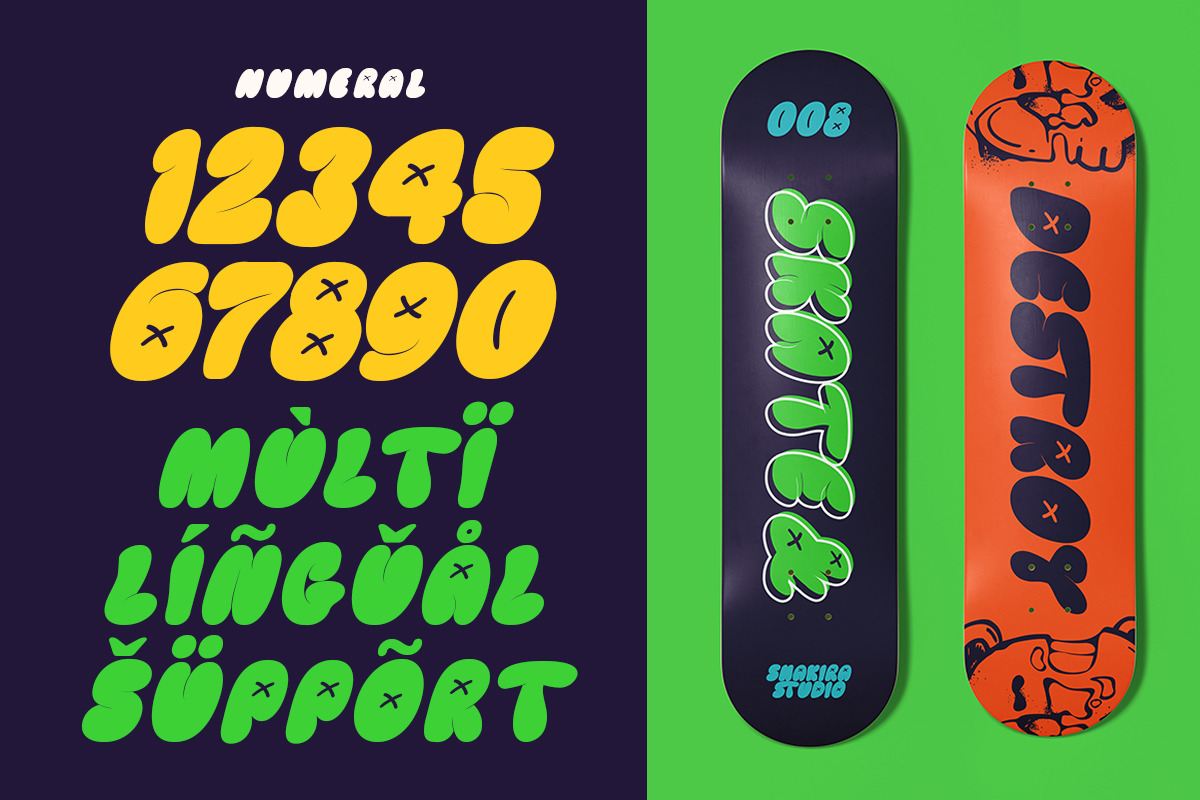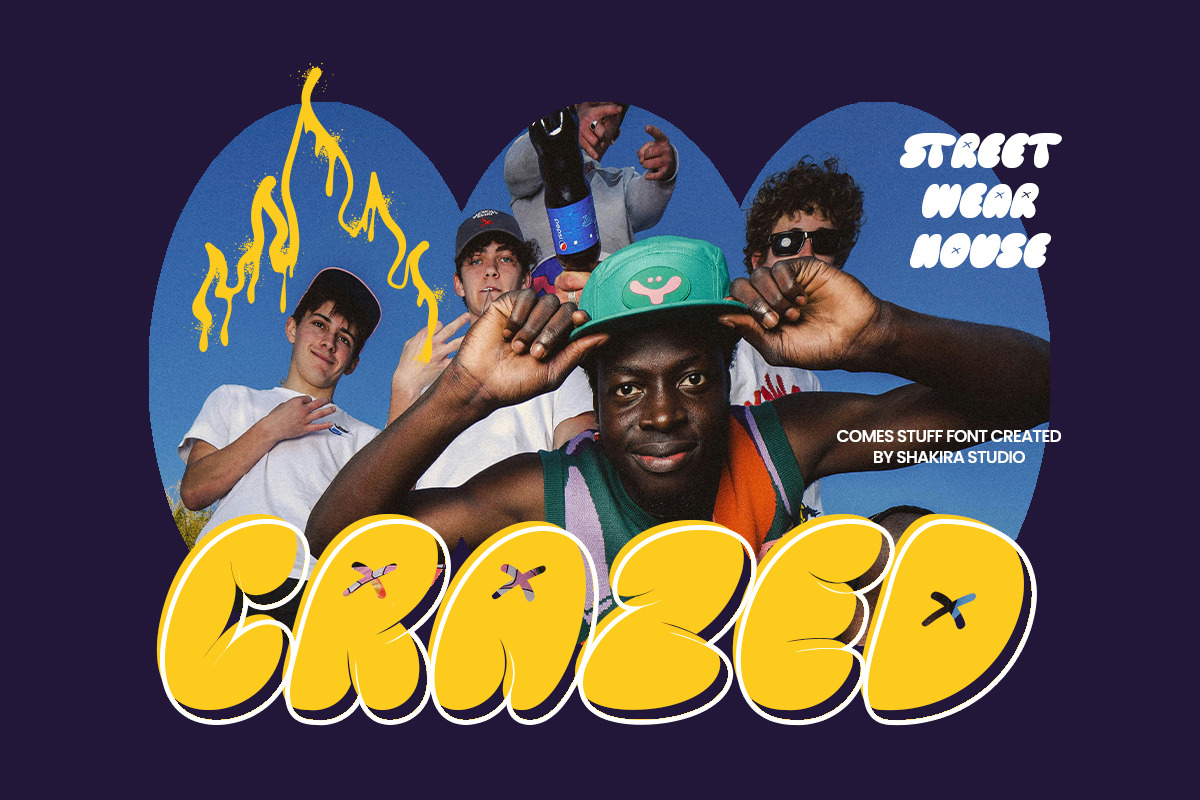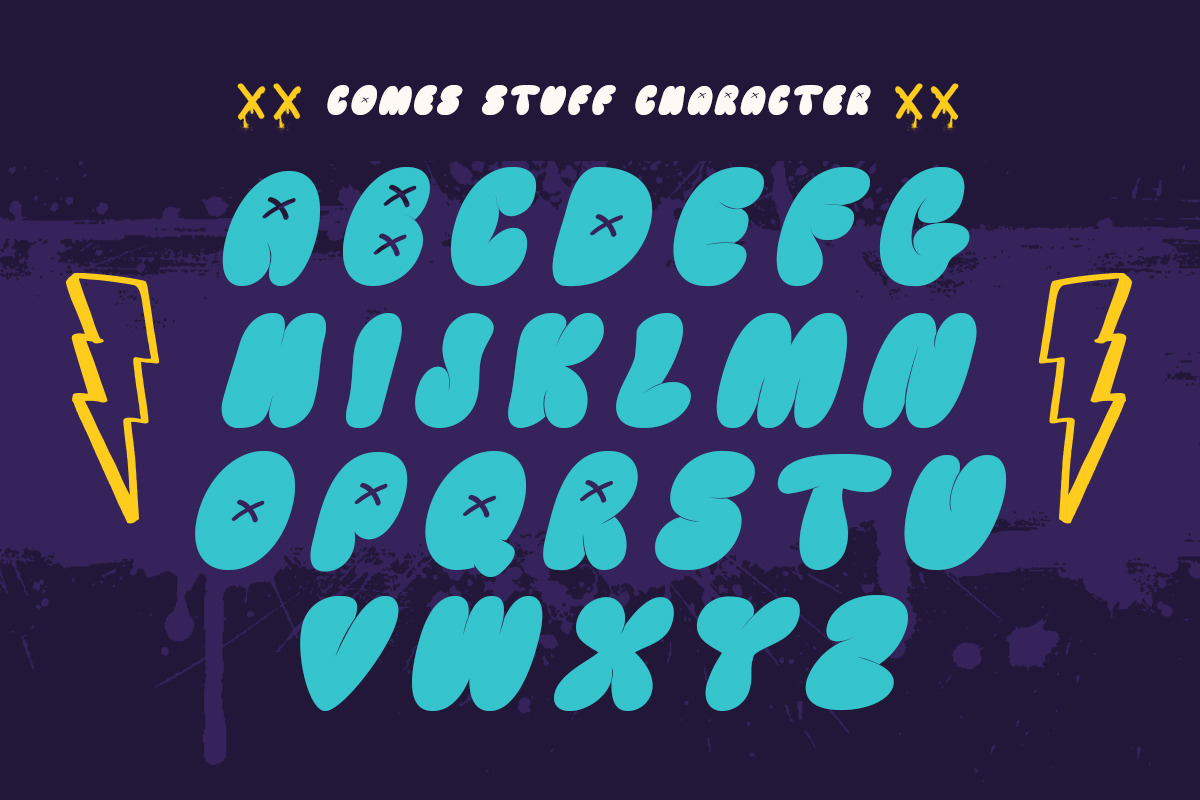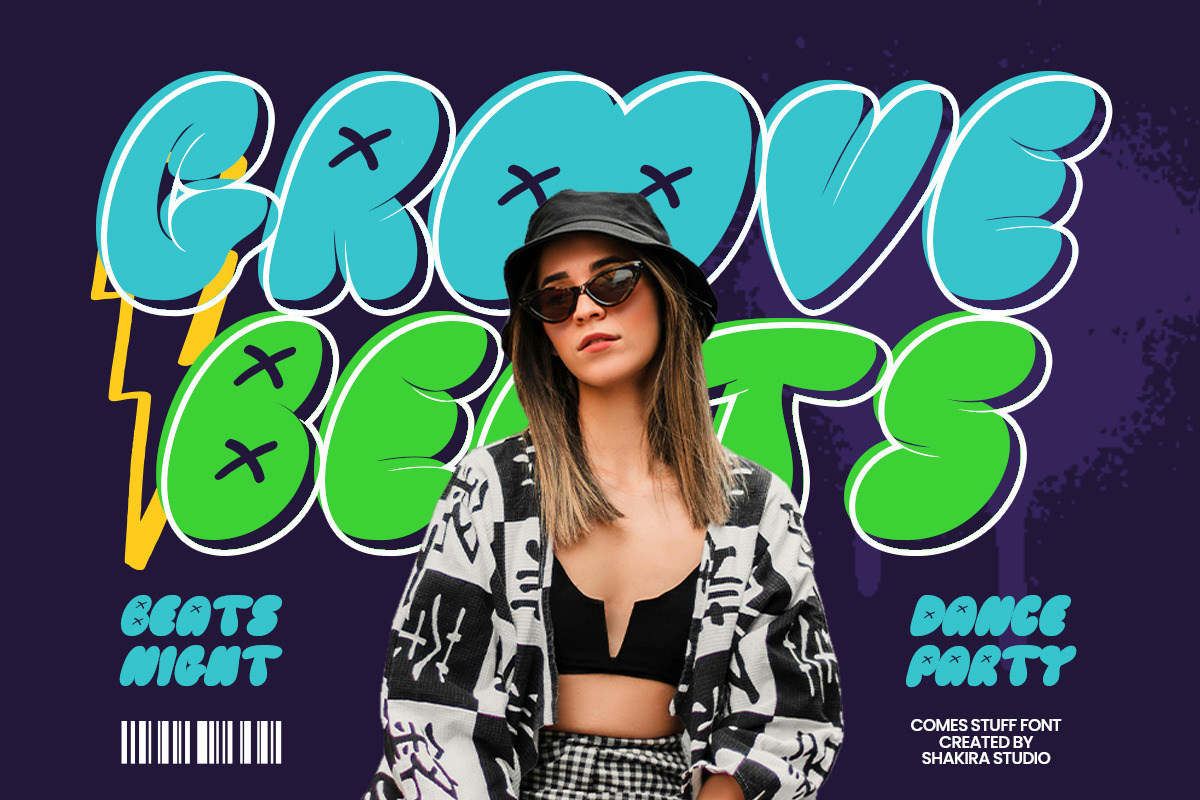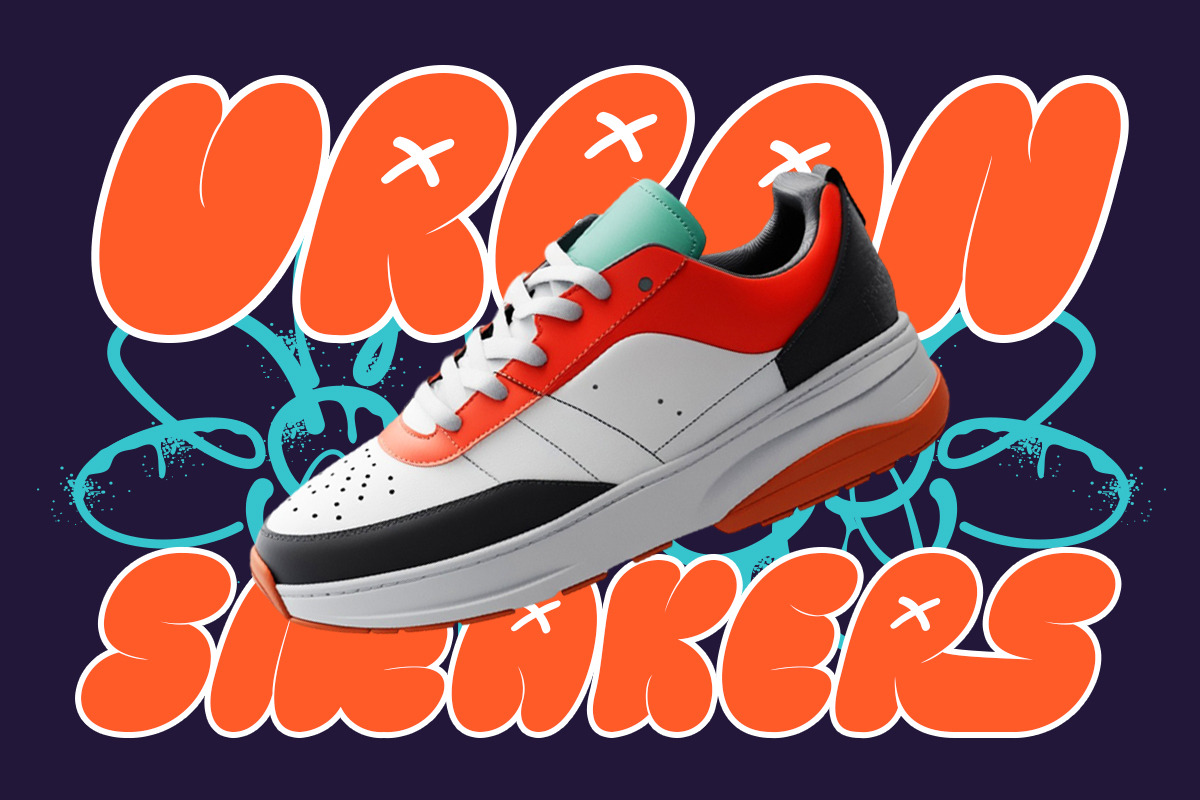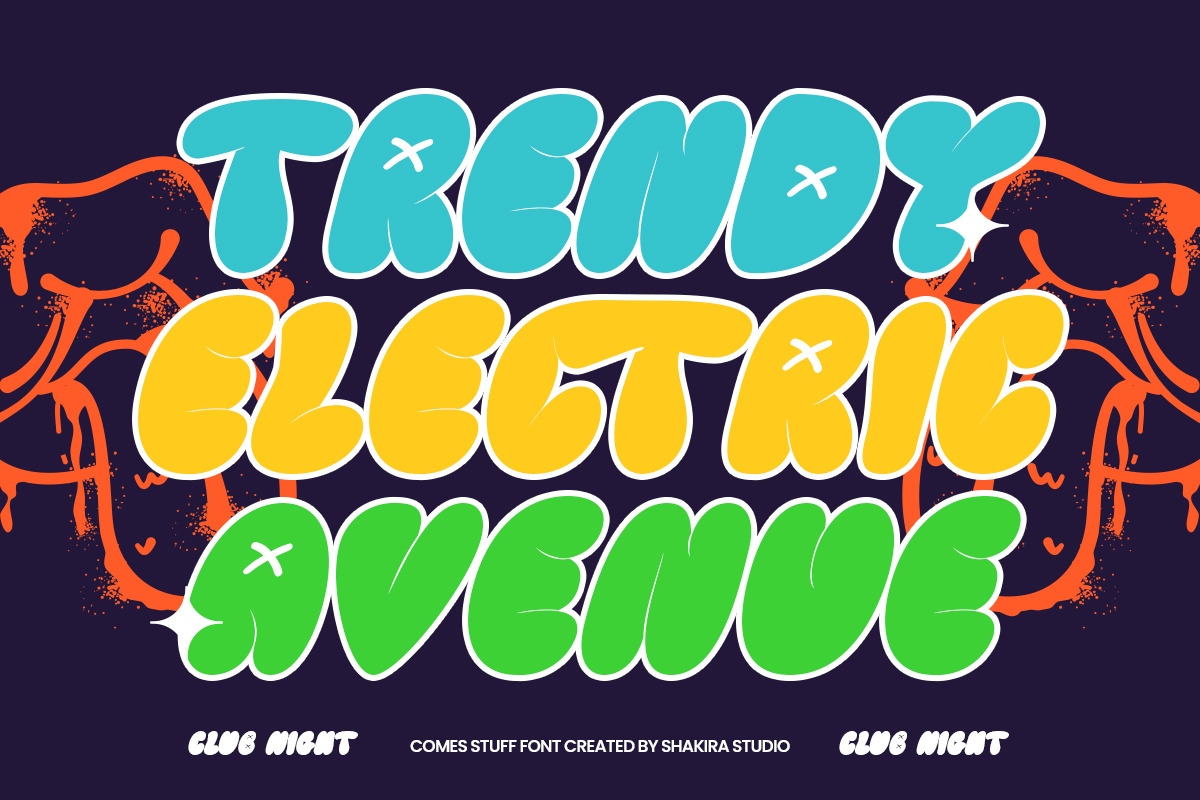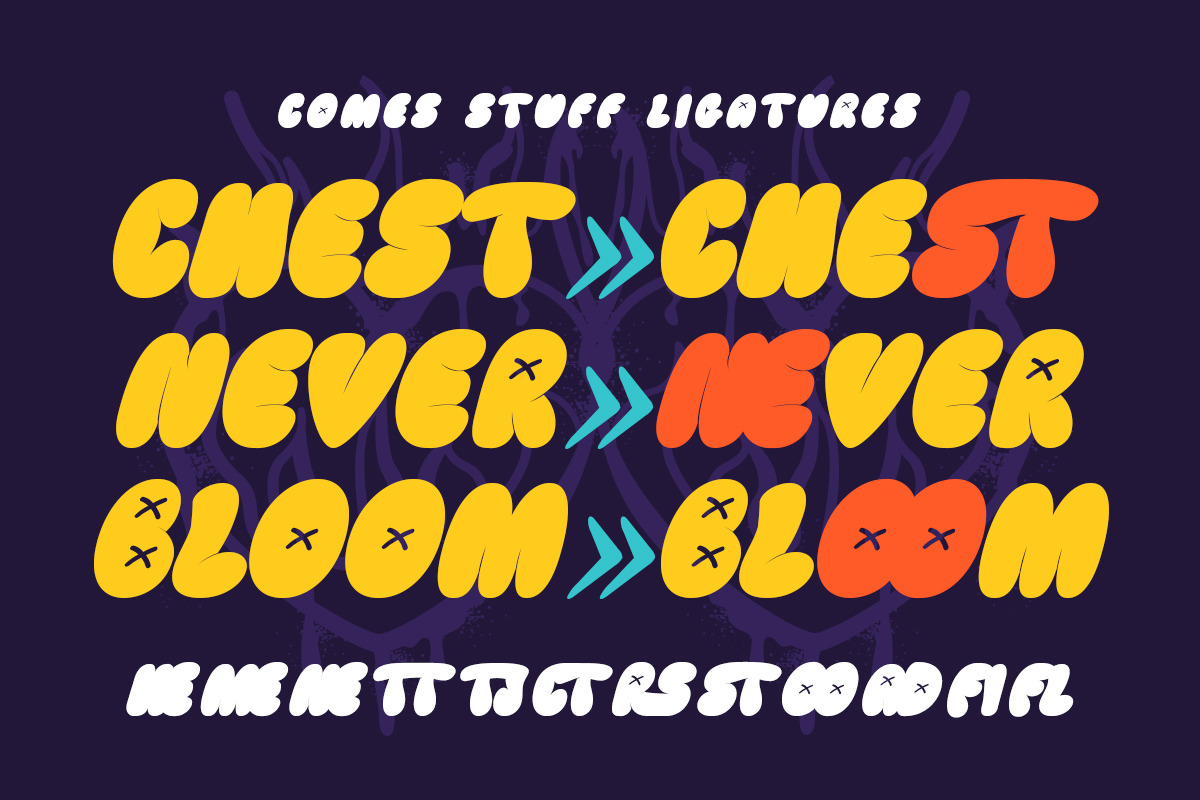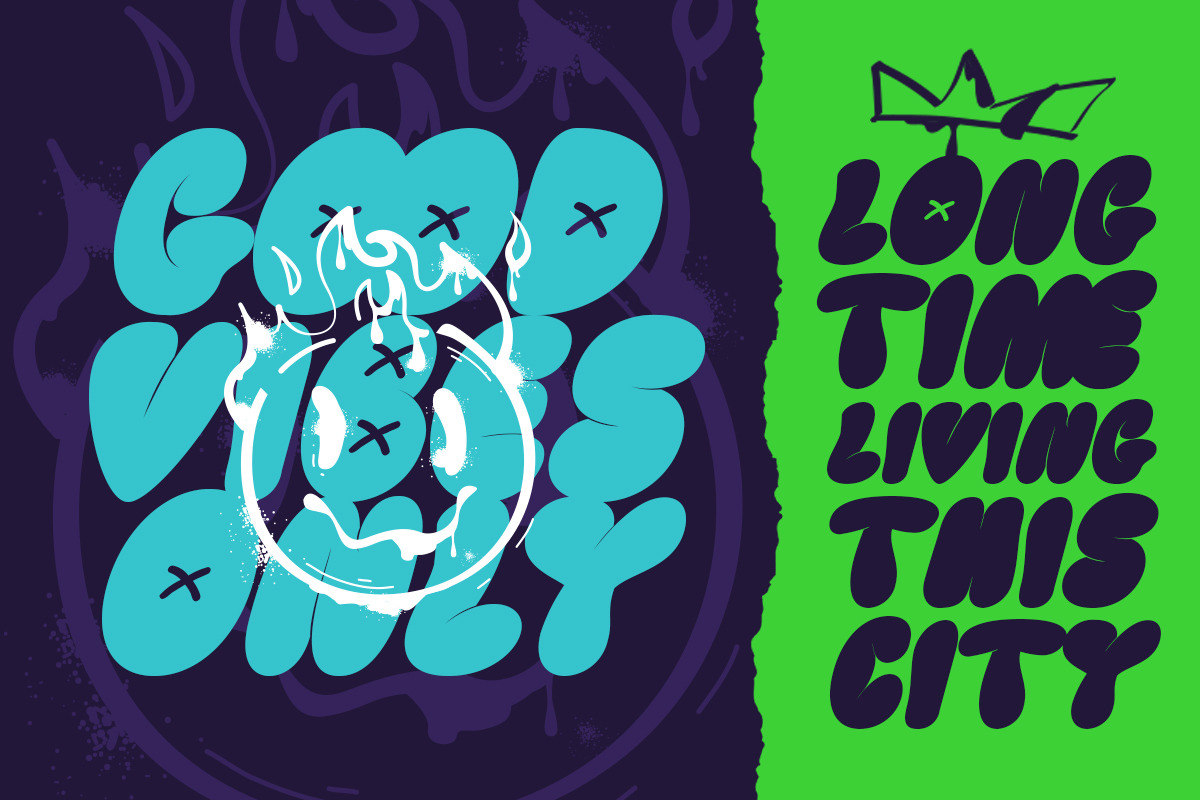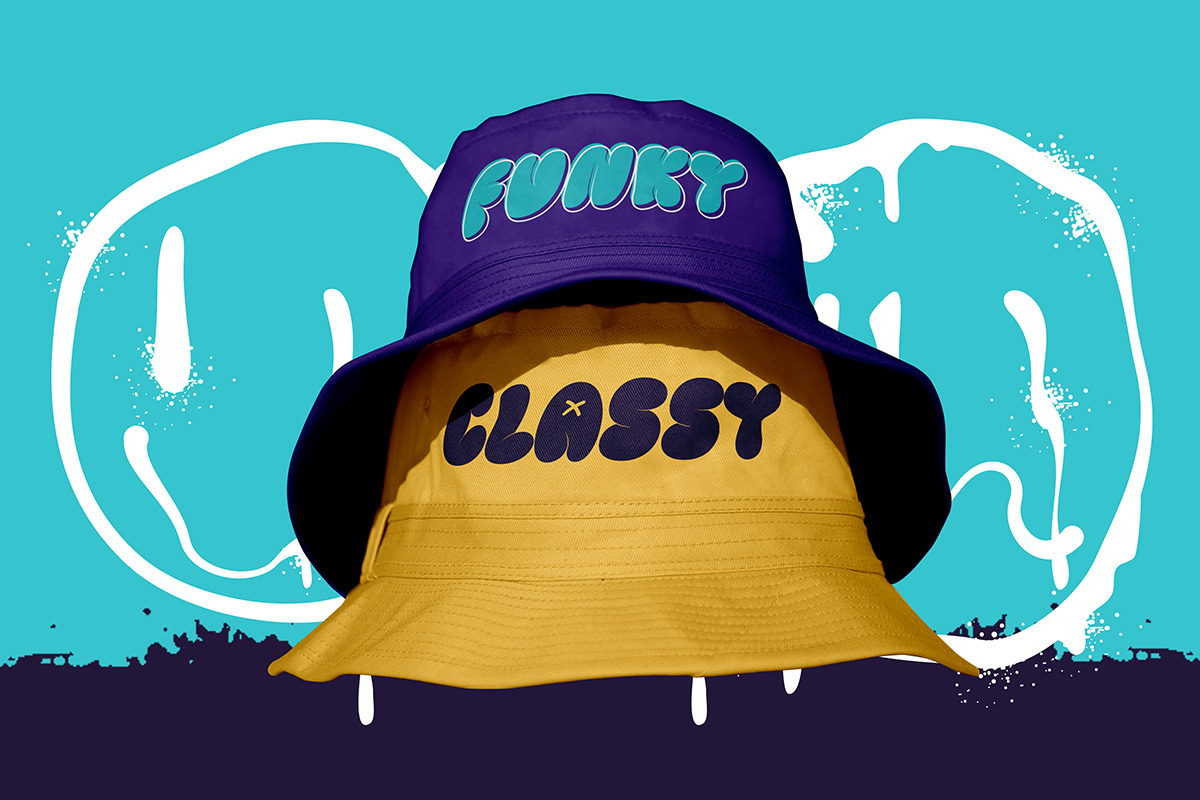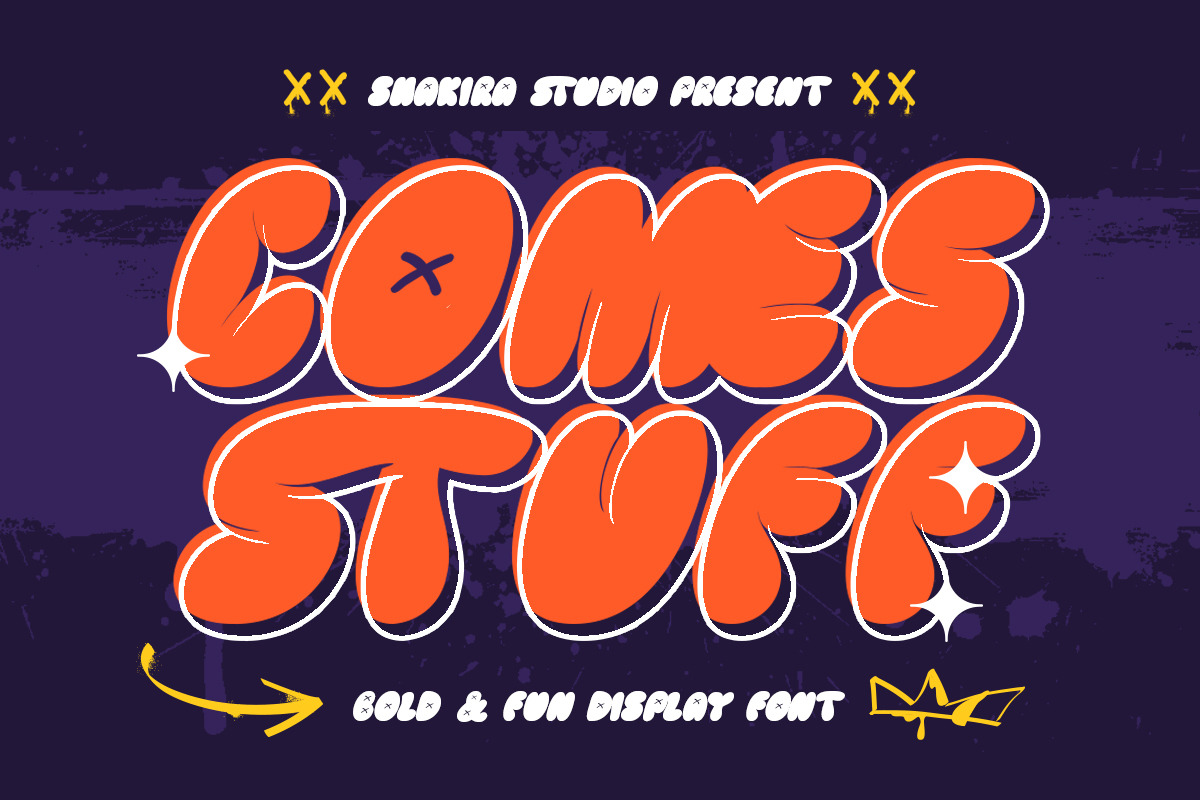
Comes Stuff - Fun & Bubbly Font
Comes Stuff – Fun & Bubbly Display Font for Playful Branding
Comes Stuff is an energetic display font bursting with cheerful personality and rounded charm. With its playful bubble-like letterforms and whimsical appeal, this typeface is perfect for creating eye-catching branding, fun logos, vibrant packaging, and lively poster designs that spark joy.
Where Playfulness Meets Professional Design
With its soft, rounded edges and happy-go-lucky aesthetic, Comes Stuff delivers instant fun while maintaining excellent readability. The font's approachable character makes it ideal for brands targeting younger audiences or those wanting to project a friendly, upbeat image.
Key Features Include:
- Bubbly Display Style – Playful rounded letterforms
- Perfect Readability – Clear yet fun character shapes
- Versatile Application – From packaging to social media
- Extended Latin Support – Comprehensive character set
Bring Your Brand to Life with Comes Stuff's Cheerful Spirit Ideal for:
- Children's product branding
- Food & beverage packaging
- Event posters & invitations
- Toy store logos
- Social media graphics